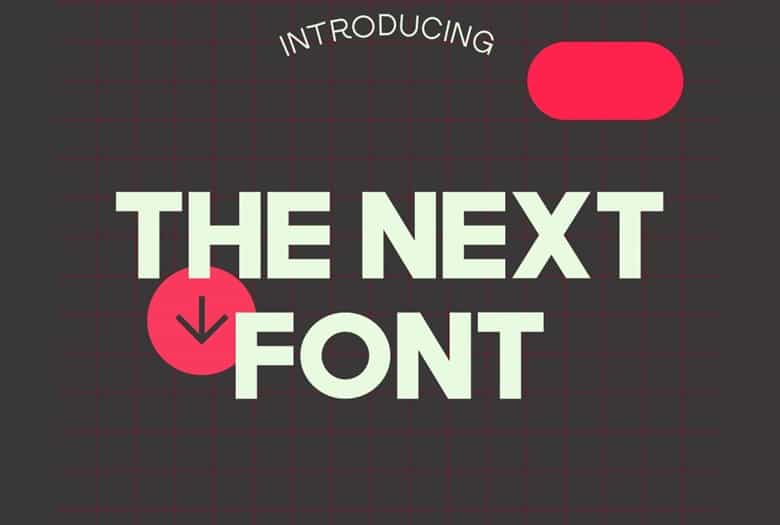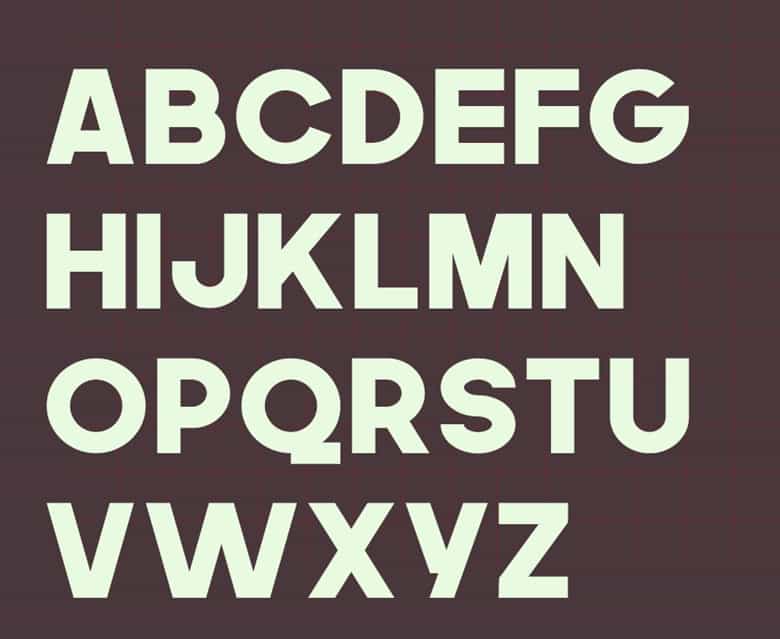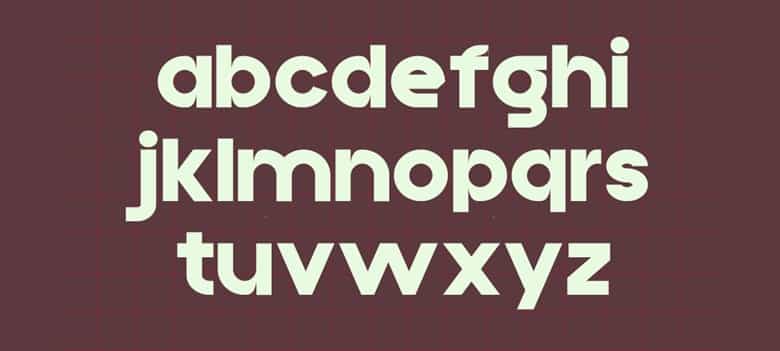
Discover The Next Font, part of the Sans Serif collection—a versatile and unique font perfect for adding a personal touch to your projects. Download it for free and enjoy crafting designs with style, from invitations to social media posts. This font is available exclusively for personal use, giving you the freedom to create without limits. Unlock your creativity with The Next Font today!
The Next is a high quality bold sans serif font that is designed by Sven Pels and is available for free download and personal use. The free version provides all uppercase and lowercase letters and a few special characters too. This font is perfect for logo design, social media, movie titles, book titles, short text even long text letters.